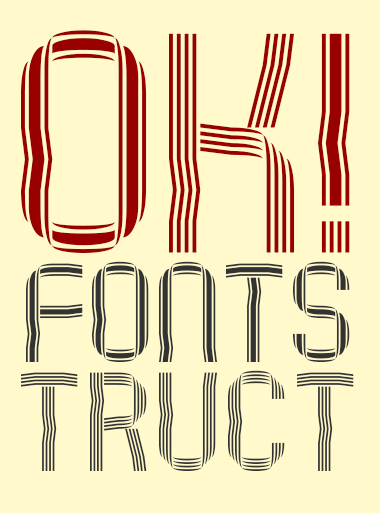
Beautifully made and folded ribbons. I like the idea of different patterns for UC - LC 10/10
Bravo!! Such sinuous and delightful twists and turns. It seems to shimmer like a mirage.
such subtle striations softly surrounding stunning structural stripes! stimulatingly successful.
A stunning techniques as always.
@architaraz - While the font gives the illusion of three dimensions (by design), I really appreciate that even the Ribbons themselves have a 3-dimensional quality to them -- like electronic cables or electrical cords. Without this added "dimensionality," a bit of the elegance would definitely be lost. (See pic)
Excellent!
Awesome...a stunning work!